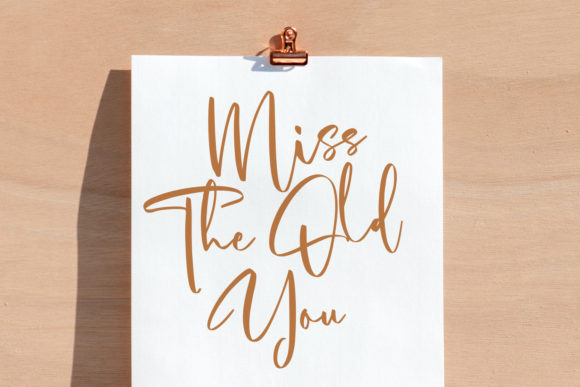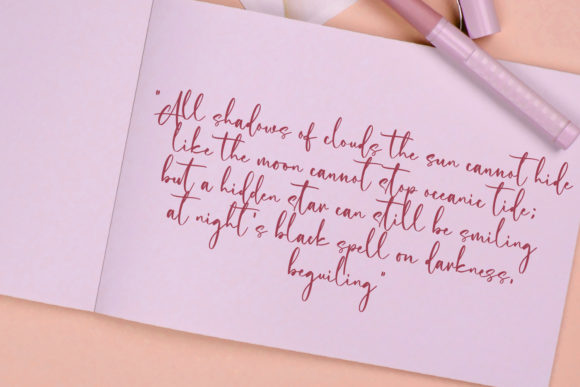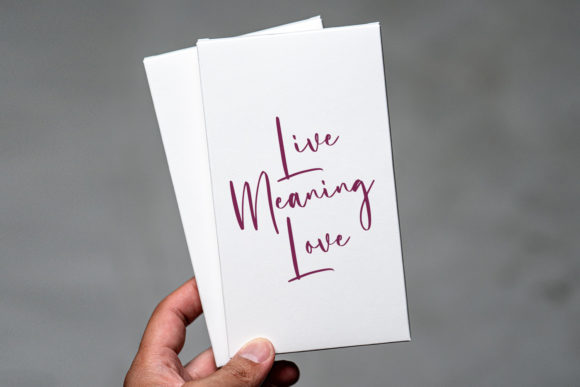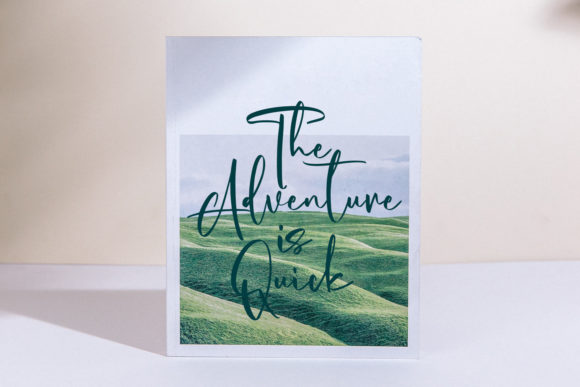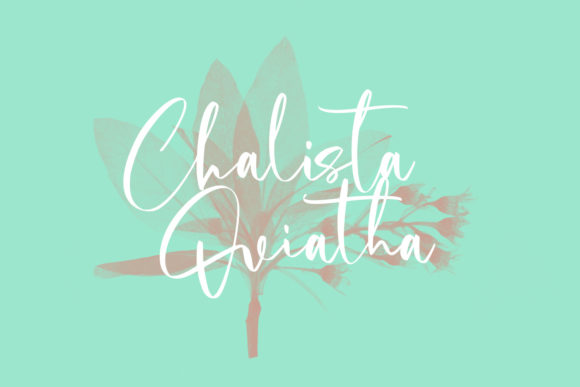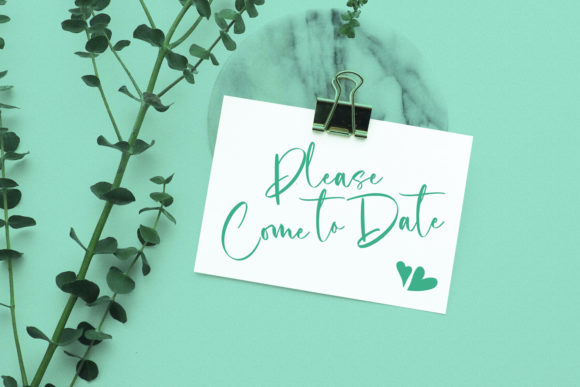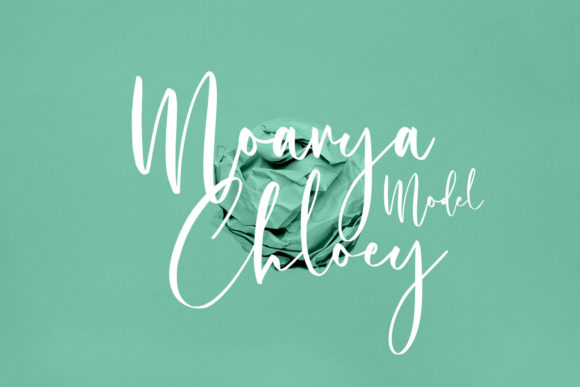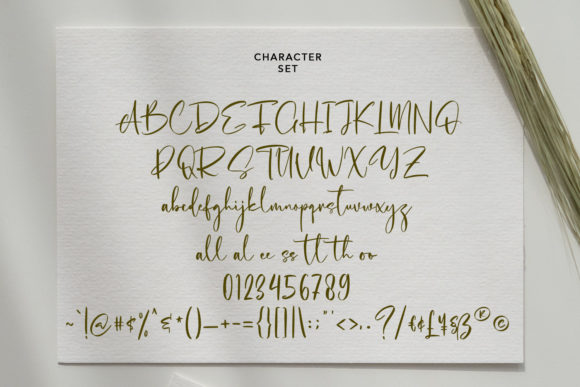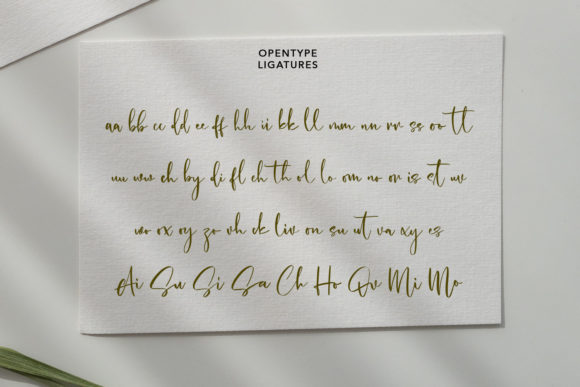
Cholasette Script Font
About Cholasette Script Font
Cholasette Script is a casual and stylish script font that brings a touch of elegance to your designs. With its flowing and well-crafted characters, this font is versatile and suitable for various applications, from greeting cards to headlines.
The casual and stylish nature of Cholasette Script sets it apart and adds a contemporary and fashionable look to your designs. The font’s smooth and flowing characters create a visually appealing composition that exudes a sense of sophistication and charm. It adds a touch of romance and elegance, making your designs stand out.
Cholasette Script’s versatility allows it to be applied to a wide range of projects. Whether you’re designing greeting cards, headlines, logos, branding materials, or any other creative endeavor, this font adapts seamlessly to different contexts. Its casual and stylish script style enhances the overall aesthetic and brings a romantic feel to your next project.
By incorporating Cholasette Script into your designs, you infuse them with a sense of elegance and charm. The font’s flowing script style adds a unique and captivating look that captures attention and leaves a lasting impression. Embrace the versatility of Cholasette Script and notice how it enhances the feel of your greeting cards, headlines, logos, branding materials, and more, adding a touch of romance and sophistication.
In summary, Cholasette Script is a casual and stylish script font that adds elegance and romance to your designs. Its well-crafted characters and flowing style create a visually appealing composition. Embrace the versatility of Cholasette Script and let it enhance the look and feel of your greeting cards, headlines, logos, branding materials, and more, bringing a touch of sophistication and charm to your projects.